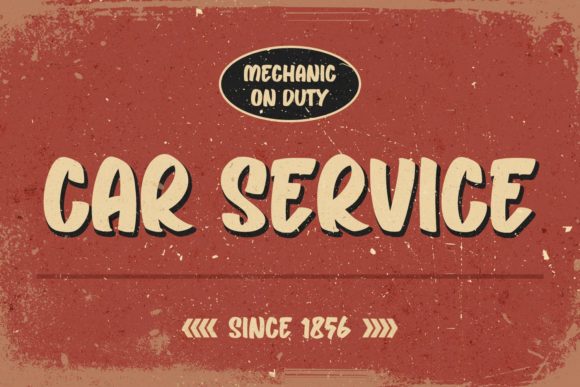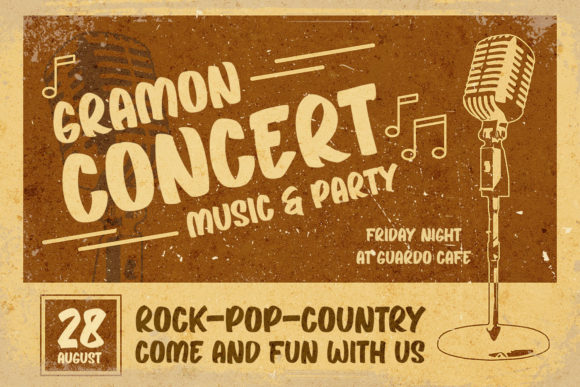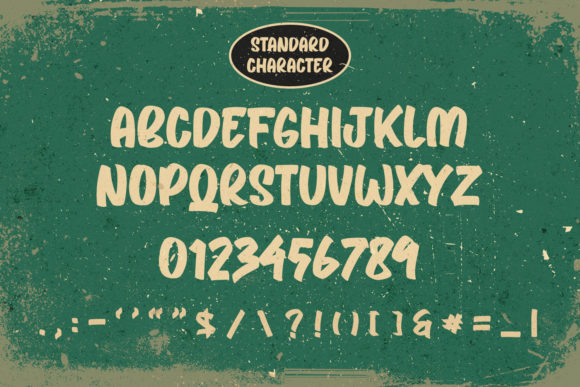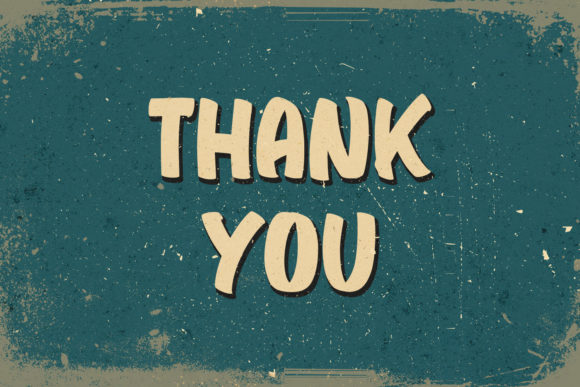
Introducing George Nomsay Font: A Timeless Vintage Display Font
Are you a designer or crafter looking for a unique and stylish font to elevate your creative projects? Look no further than George Nomsay Font, a stunning display font that exudes a vintage charm. With its original look and versatility, George Nomsay is perfect for a wide range of crafty ideas, from letterheads and titles to stationery and more.
The Charm of George Nomsay Font
George Nomsay Font boasts a distinctive vintage style that is sure to capture attention. Its elegant and refined design makes it an excellent choice for projects that require a touch of sophistication and class. The font’s unique character set and classic lines evoke a sense of nostalgia, transporting you back to a bygone era of elegance and refinement.
Key Features of George Nomsay Font
- Vintage Style: George Nomsay Font features a beautiful vintage design that adds a touch of elegance to any project.
- Display Font: This font is specifically designed as a display font, making it perfect for titles, headings, and other prominent text elements.
- Original Look: George Nomsay Font has a unique and original design that sets it apart from other fonts.
- Versatile: This font can be used for a wide range of projects, from letterheads and stationery to posters and signage.
Use Cases for George Nomsay Font
George Nomsay Font is an incredibly versatile font that can be used in a variety of creative projects. Here are some ideas to get you started:
- Letterheads and Stationery: Add a touch of elegance to your business correspondence with George Nomsay Font.
- Titles and Headings: Use George Nomsay Font to create eye-catching titles and headings for posters, flyers, and other marketing materials.
- Signage: George Nomsay Font is perfect for creating eye-catching signs and displays.
- Branding and Packaging: Use George Nomsay Font to create a unique and memorable brand identity.
Why Choose George Nomsay Font?
With so many fonts available, why choose George Nomsay Font? Here are just a few reasons why this font stands out:
- Unique Design: George Nomsay Font has a distinctive and original design that will set your projects apart.
- High-Quality: This font is designed to high standards, ensuring that it will look great in any project.
Tips for Using George Nomsay Font
To get the most out of George Nomsay Font, here are a few tips:
- Use it as a Display Font: George Nomsay Font is designed as a display font, so use it to create eye-catching titles and headings.
- Experiment with Colors: George Nomsay Font looks great in a variety of colors, so don’t be afraid to experiment and find the perfect hue for your project.
- Pair it with Other Fonts: George Nomsay Font can be paired with other fonts to create a unique and interesting look.